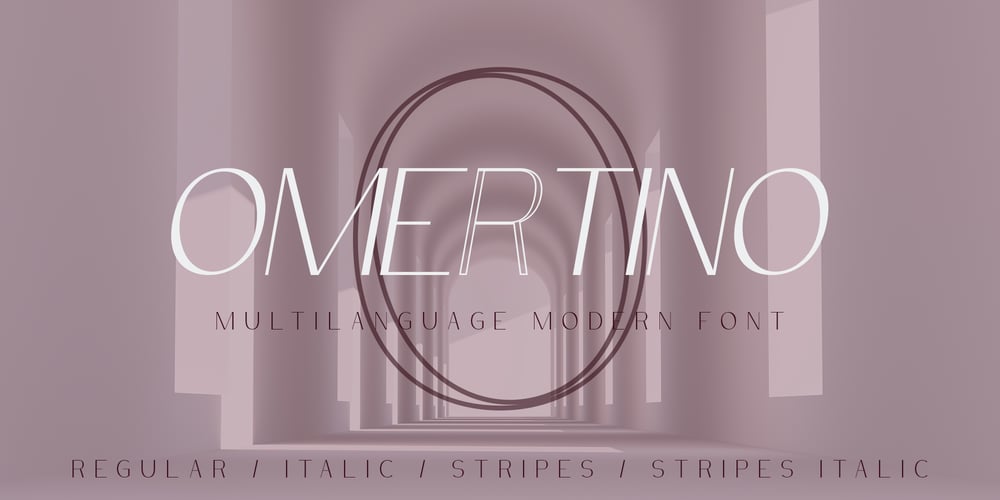
Omertino
Omertino font
Omertino Font Family was designed by Oksana Shudegova and published by OKSHUtypeCO. Omertino contains 4 styles and family package options. Omerta Font Family – is a classic style sans serif typeface making it one of the most memorable caps fonts on the market.This versatile font can be used for logos, mastheads, pull quotes & monograms showing both feminine and masculine qualities.Very suitable for greeting cards, branding materials, business cards, quotes, posters, and more!This font are perfect for wedding postcard. Or you can create perfect and unique design of your logo, blog, stationery, marketing, magazines and more :)FONT FAMILY: regular style italic style stripes italic style Stripes style is not outline!!! This is a developed style of the letter that goes from contour to line, which gives a certain rare style that makes you pay attention to yourself.Features : UpperCase & Lowercase Numerals & Punctuations Multilingualcharacters(AÀÁÂÃÄÅCÇDÐEÈÉÊËIÌÍÎÏNÑOØÒÓÔÕÖUÙÜÚÛWYÝŸŸ ÆŒßÞàáâãäåæçèéêëìíîïðñòóôõöøùúûüýÿ)